We all know that selection of the fonts play vital role in making a design worthy. Hence it is essential to pick the right font for your design. If you are trying out some cool design, then the below given 10 hipsterish fonts can actually add extra spice to your design. The fonts are free to download. Have a look at them below!
1. Bobber Free Typeface
This is the first slab serif by Lucas Almeida which is grid based. It is called Bobber because of its vintage style. You can get it here.
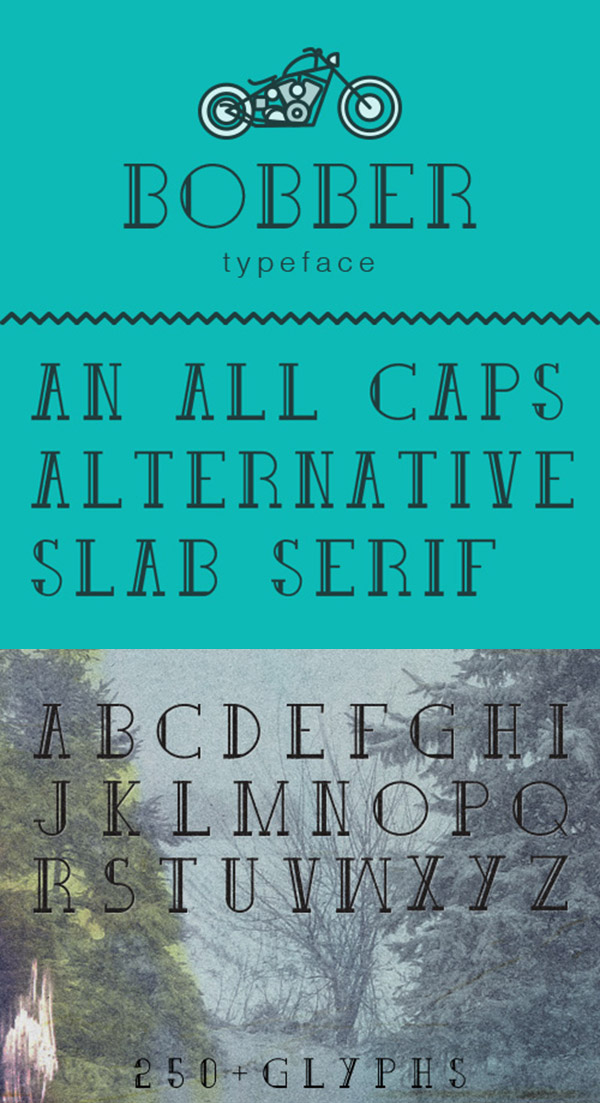
2. Che’s Bone
Filiz Sahin showing love to her dog Che, has experimented with this font as Che loves the bones. The font has round edges and condensed skinny forms which is available here.
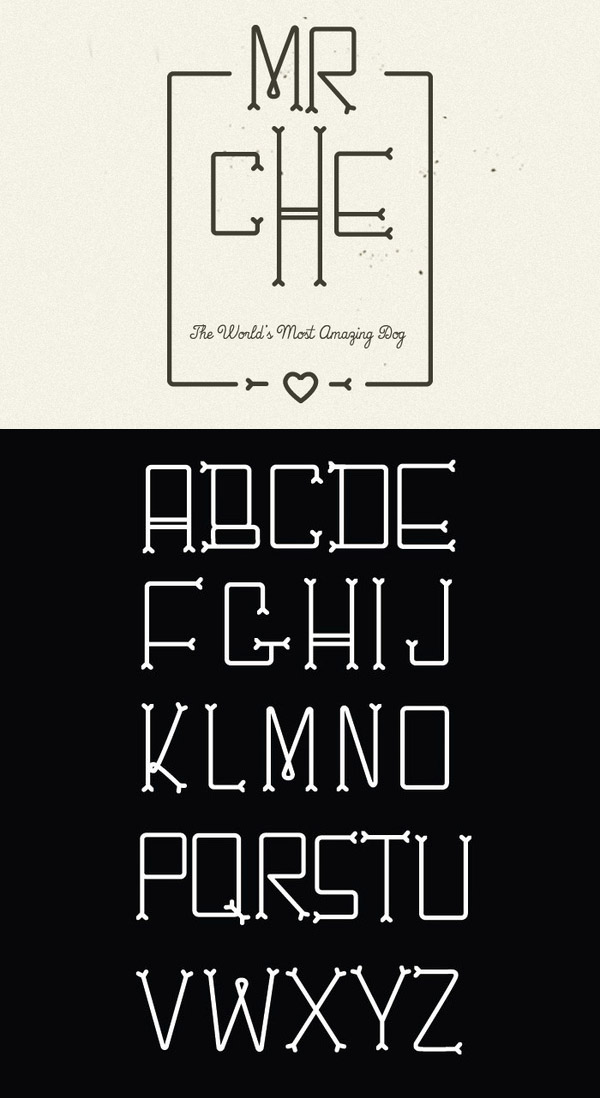
3. Homestead
Inspired by the desire and need to explore, designer Luke Lisi has designed this homestead font.
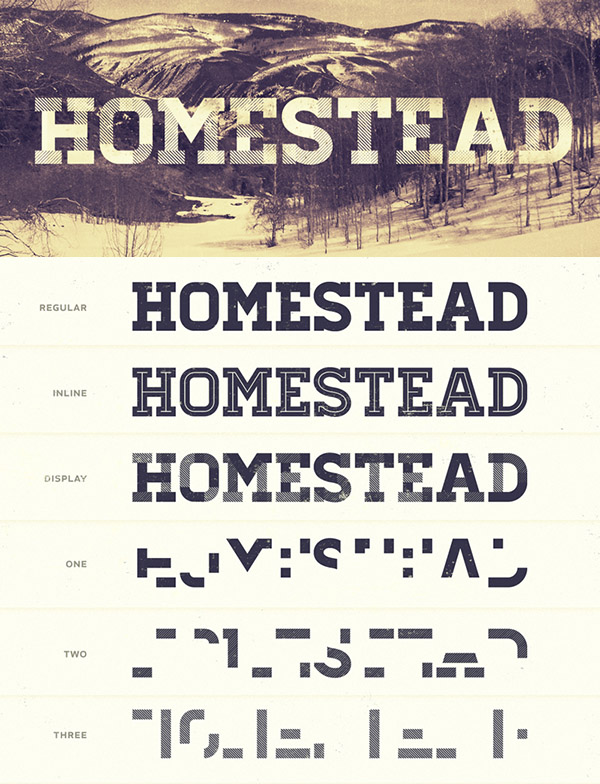
4. Aventura
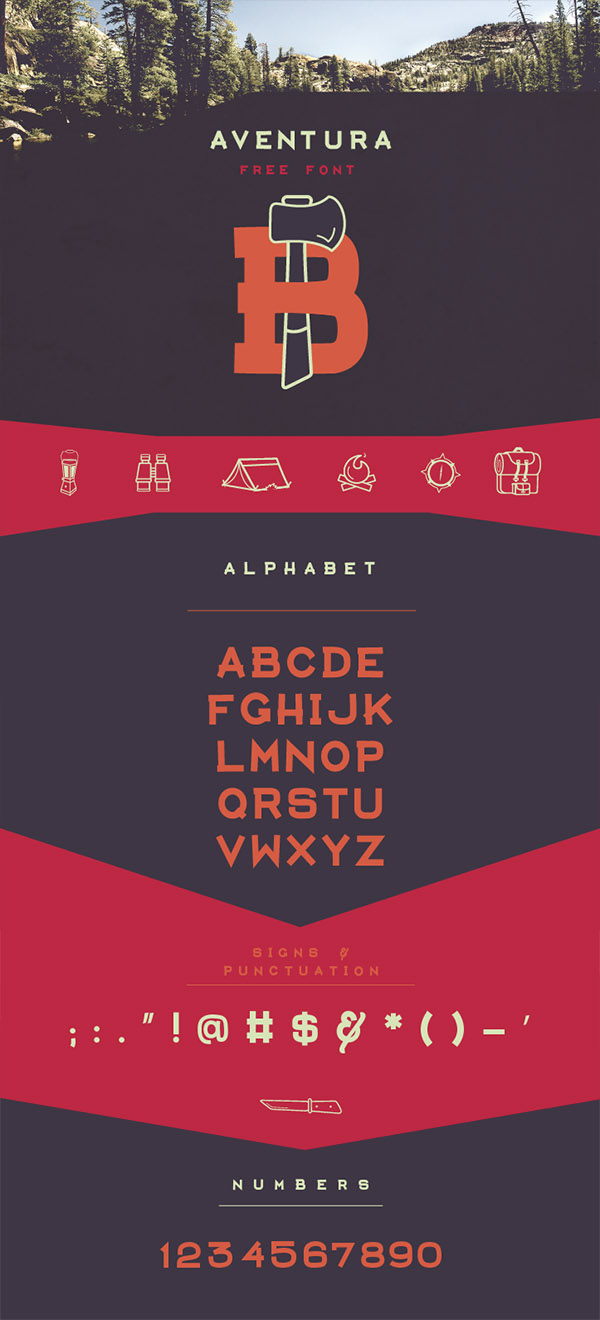
5. RBNo2
RBNo2 is a new gothic sans serif font designed by Rene Bieder for Fontfabric. You can get it here.
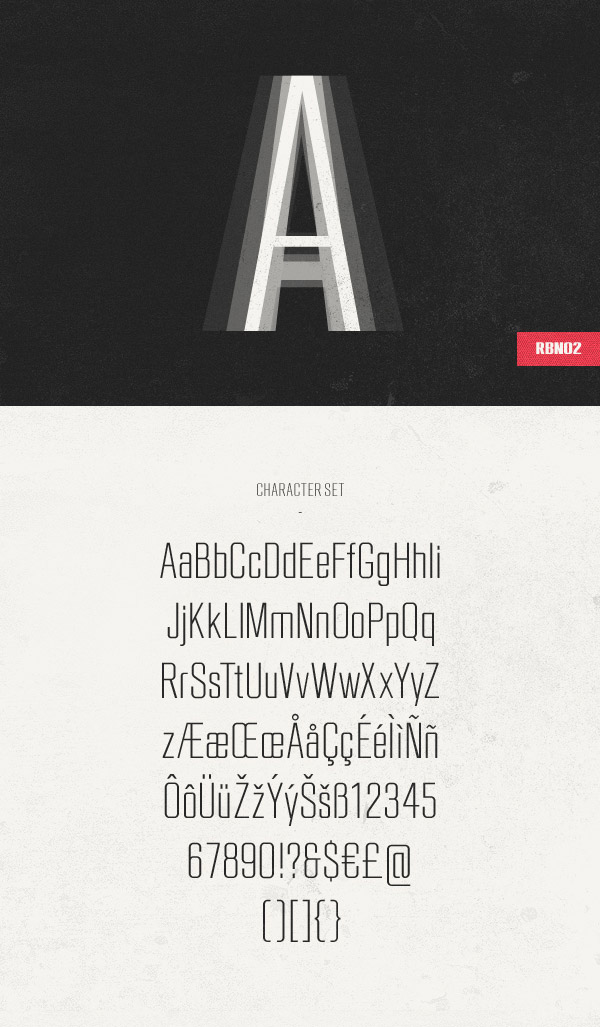
6. REN Typeface
REN Typeface is the latest font by Andreas Leonidou with a retro look which is available here.
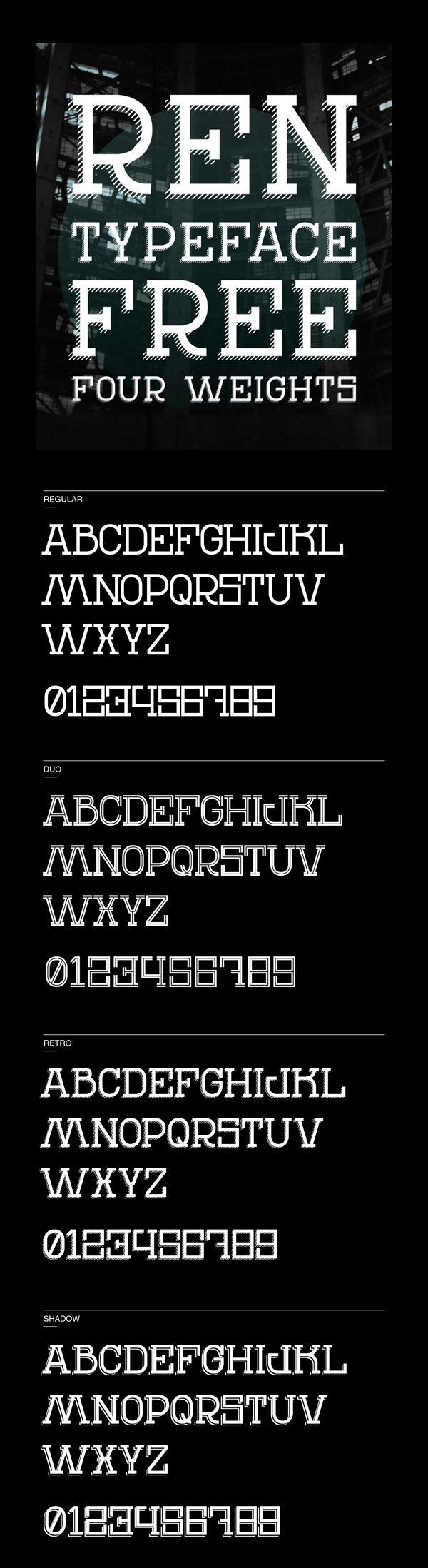
7. Farray Font
French Designer, Adrien Coquet has created the FARRAY font which is free to download for both personal and commercial use. You can get it here.
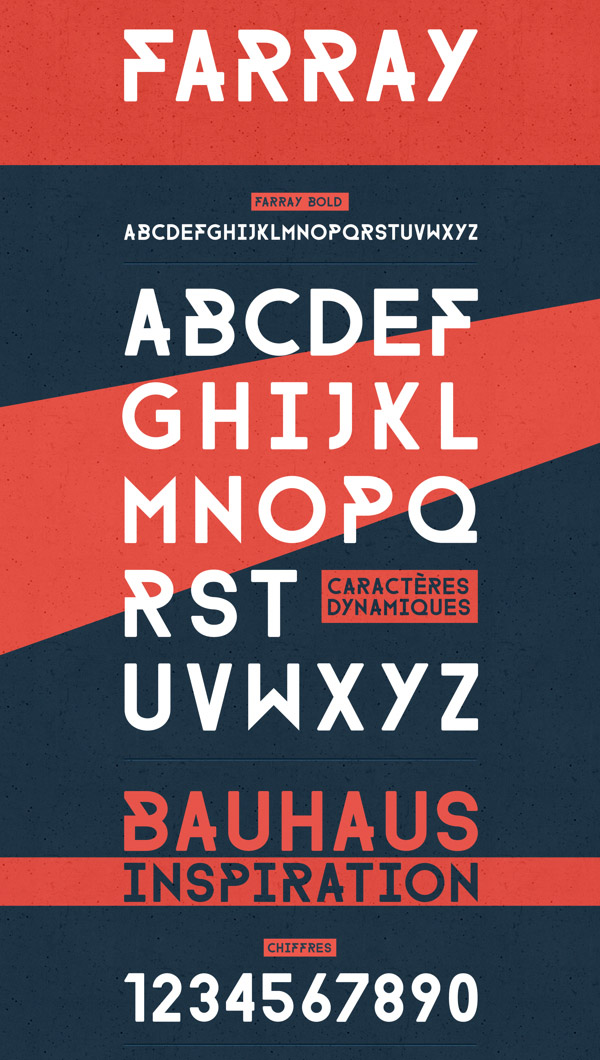
8. Silverfake
Silverfake is a new contemporary slab serif wide free font designed by Alexey Frolov. It is available here.
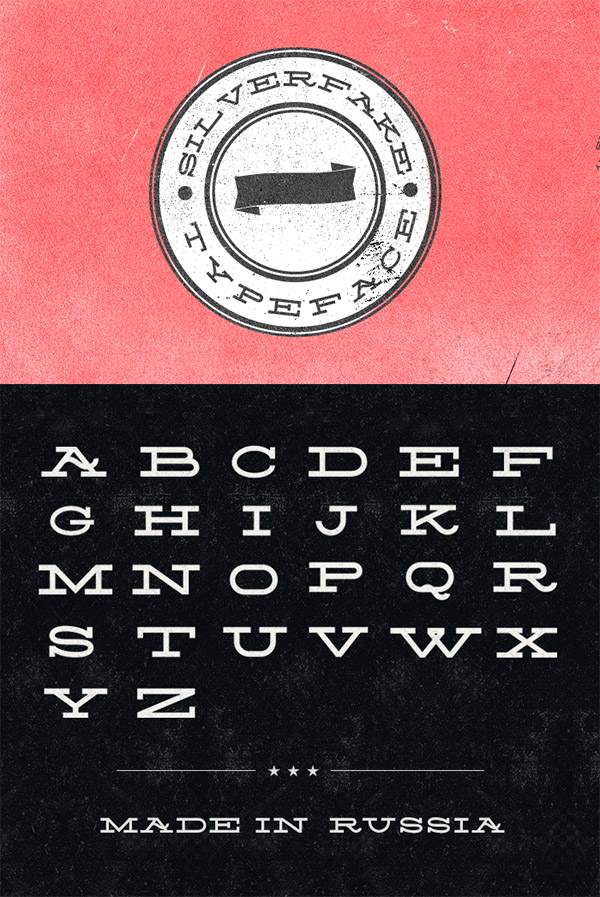
9. Metropolis
Metropolis is a bold, bumptious typeface with a stolidly calm disposition which is available here.
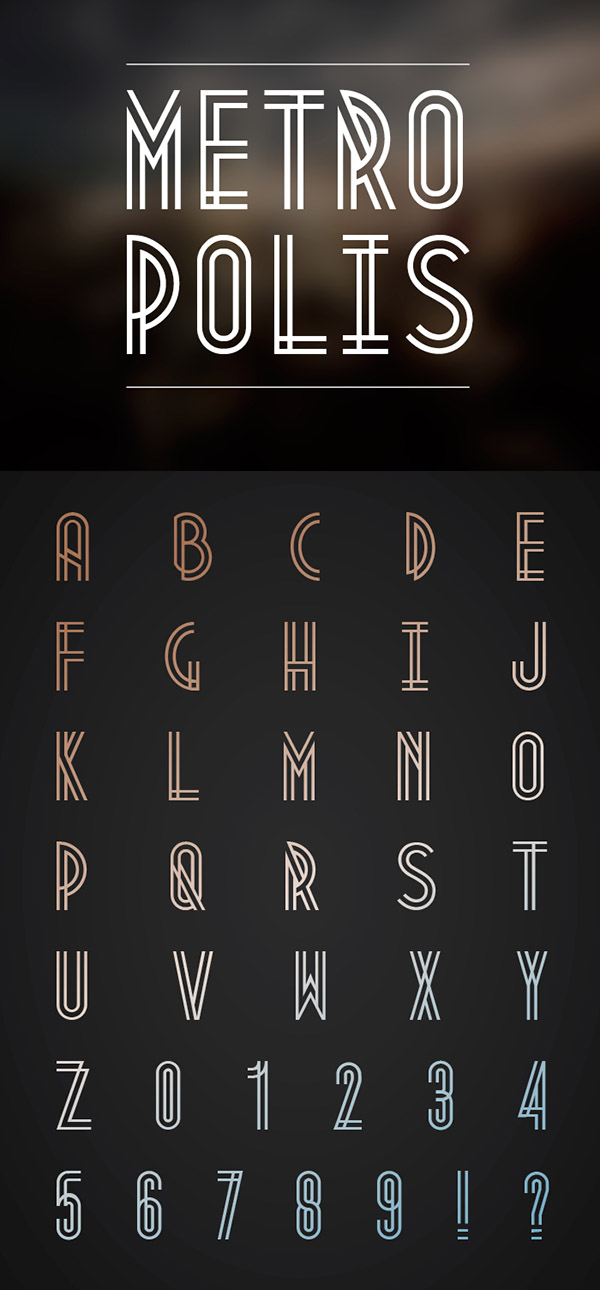
10. Draft Display
Draft Display is free font designed by Camille San Vicente which is available here.